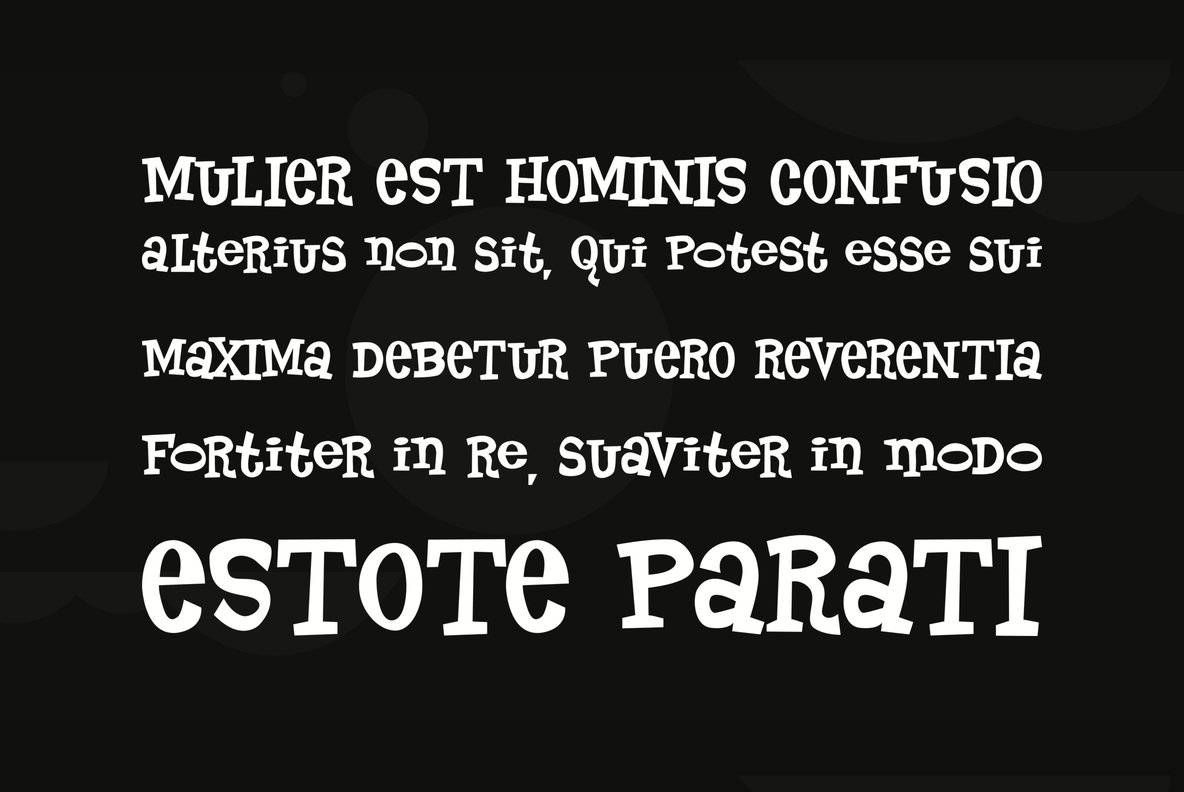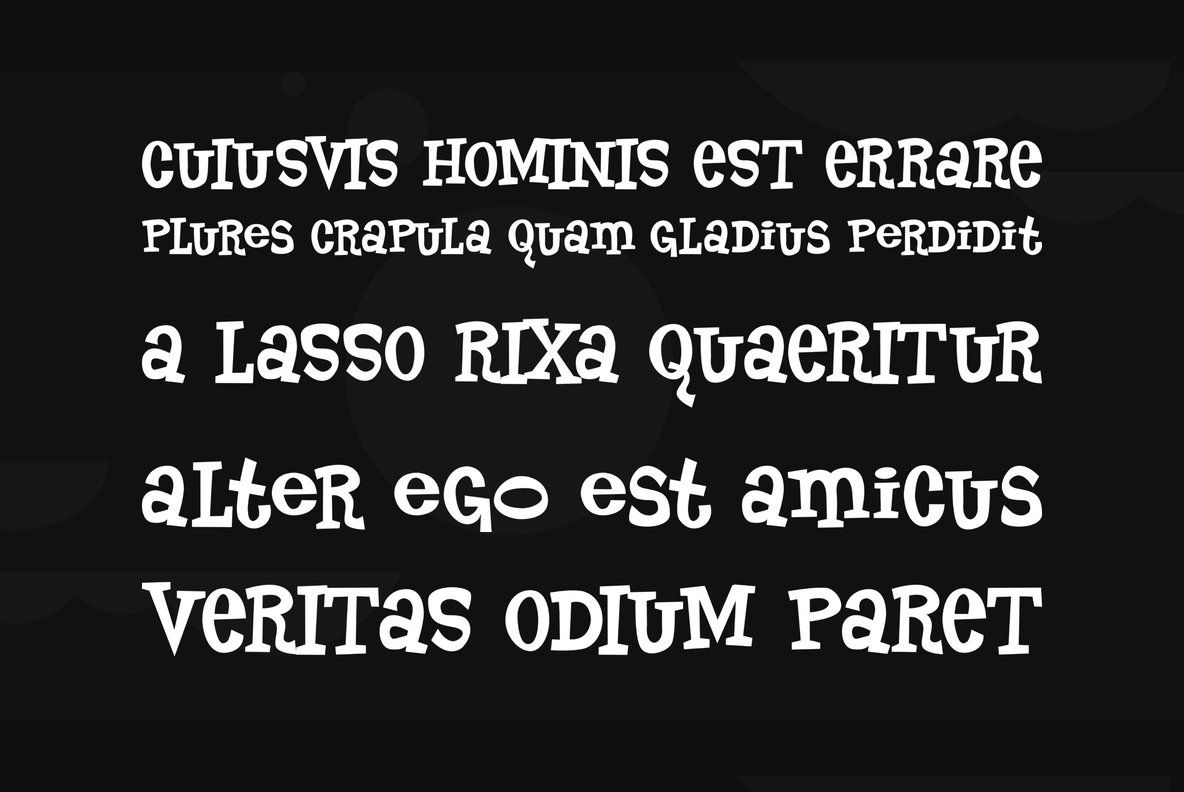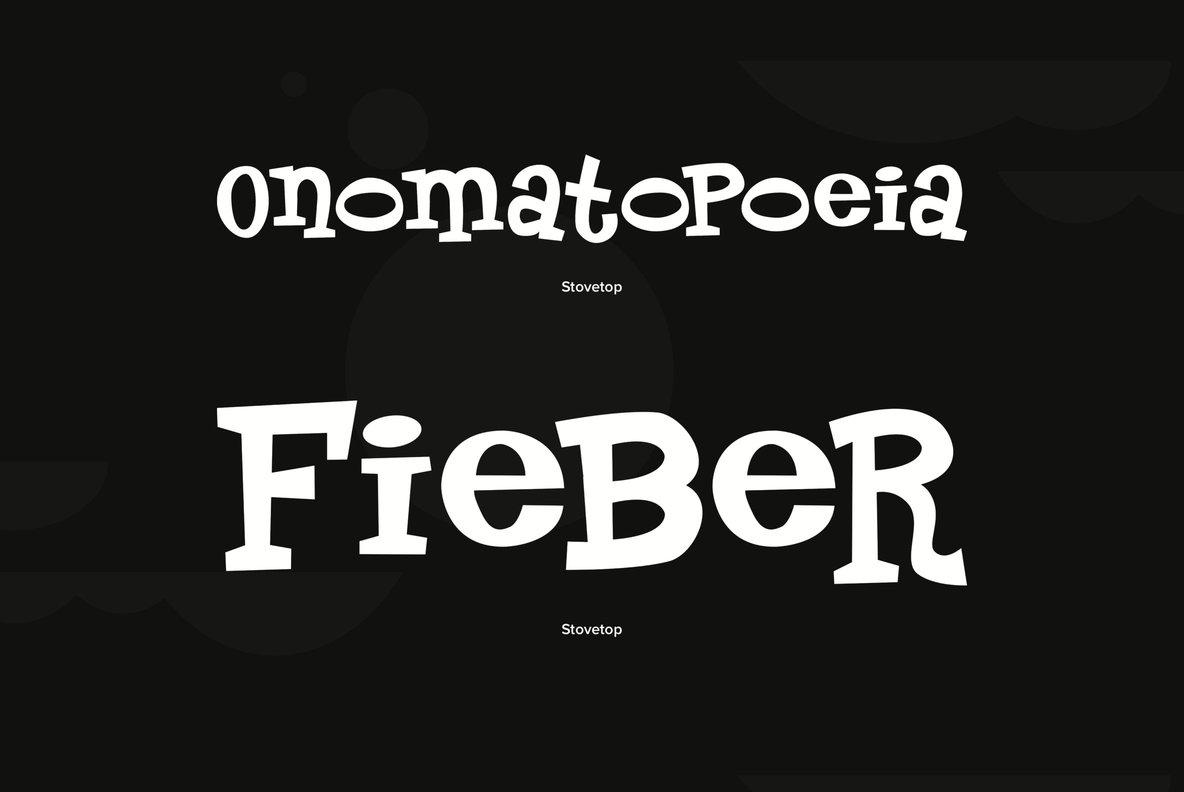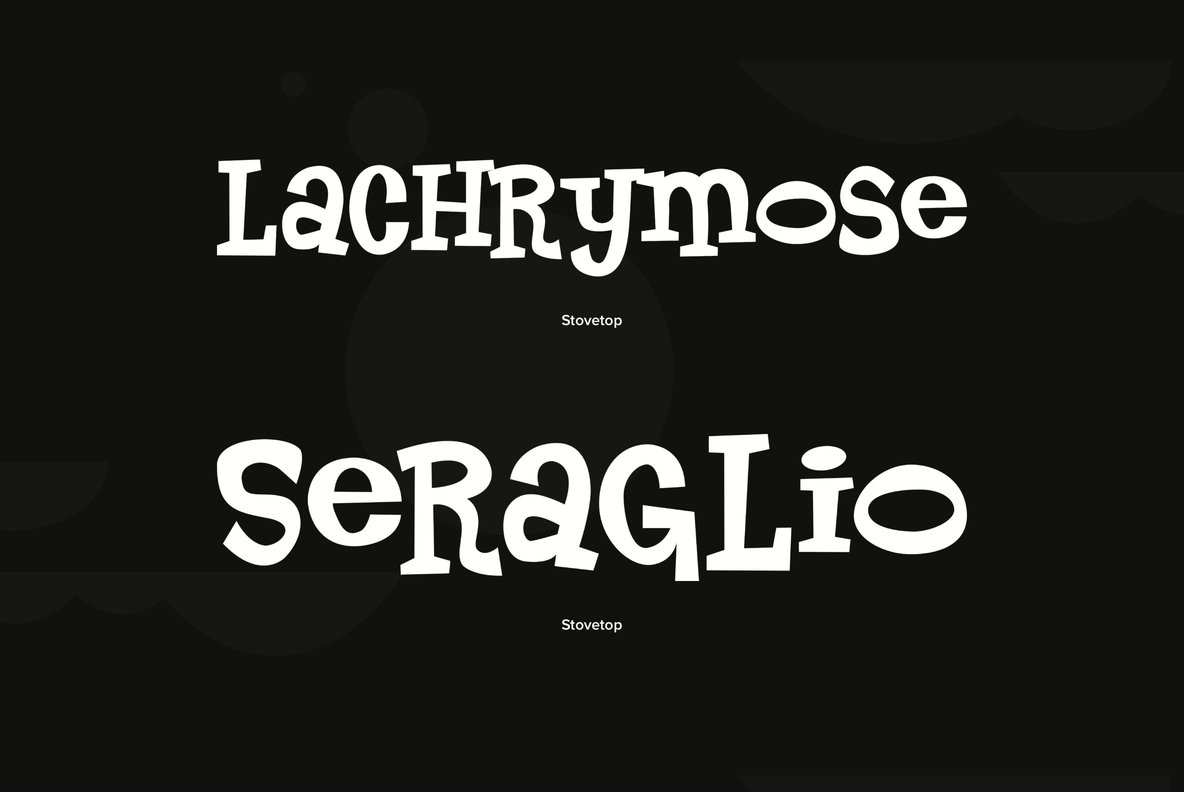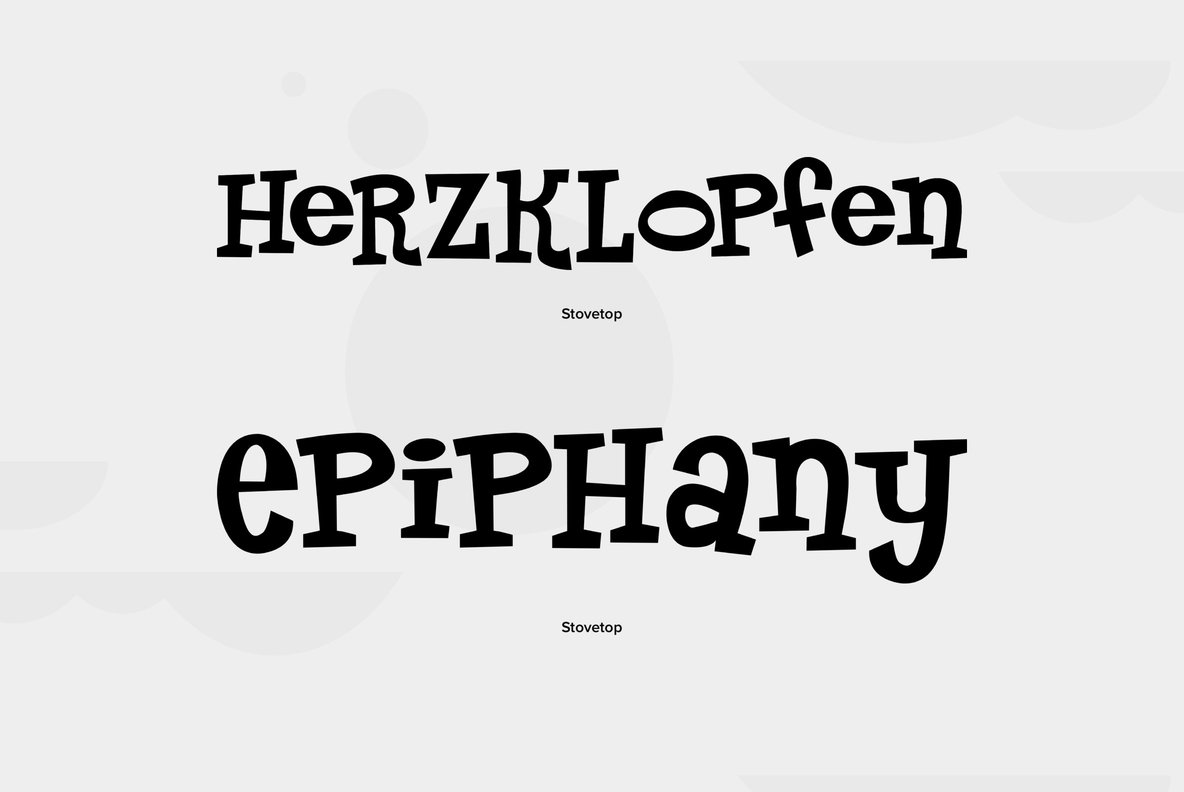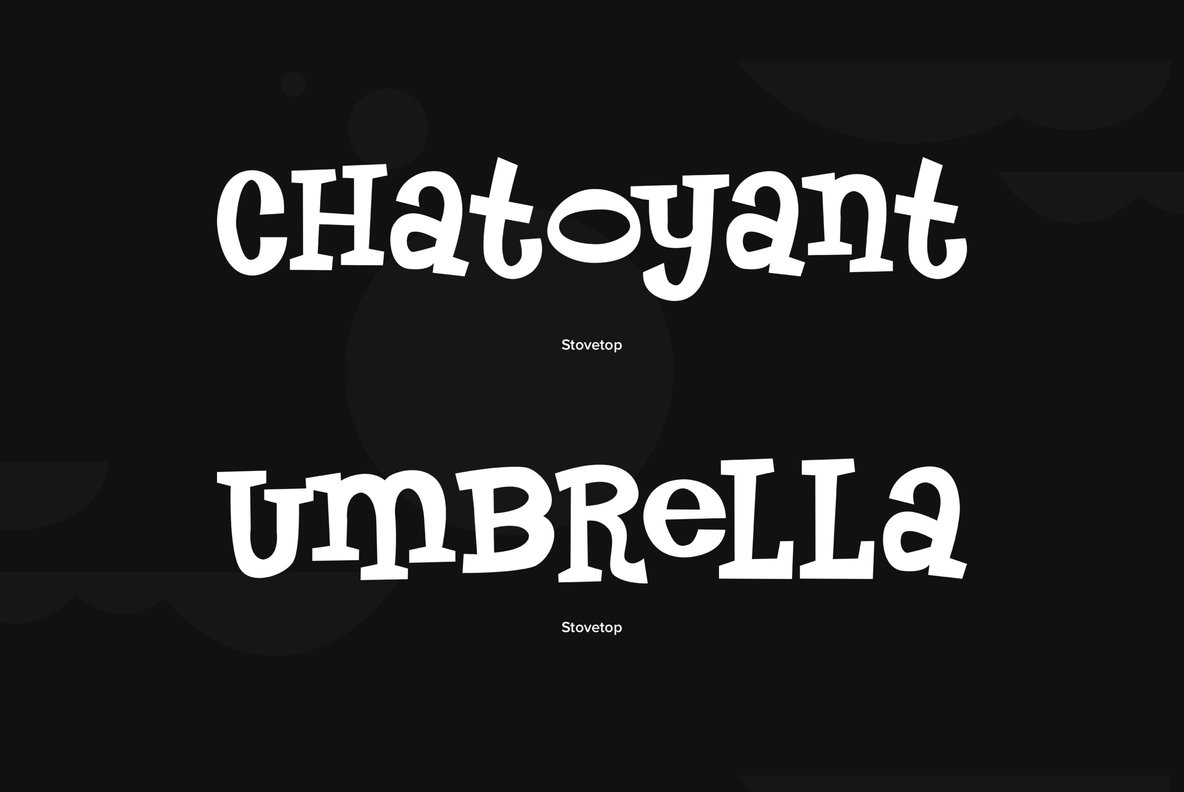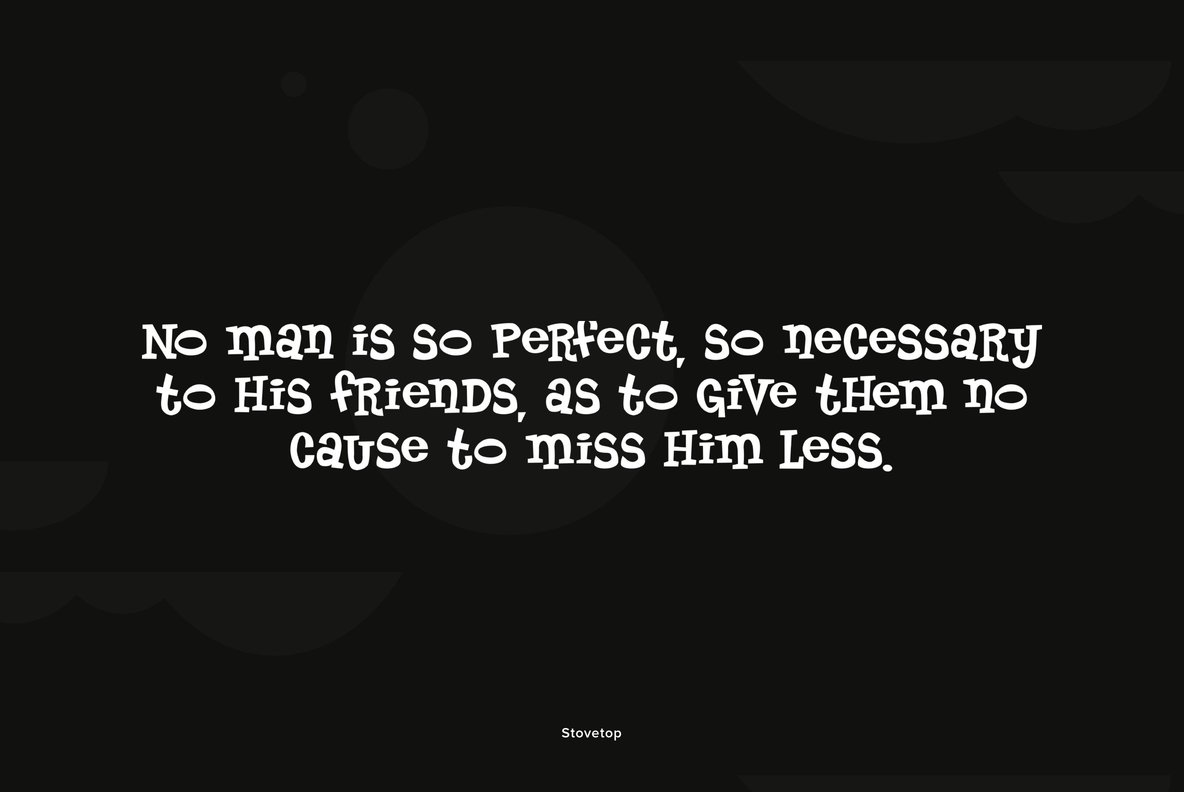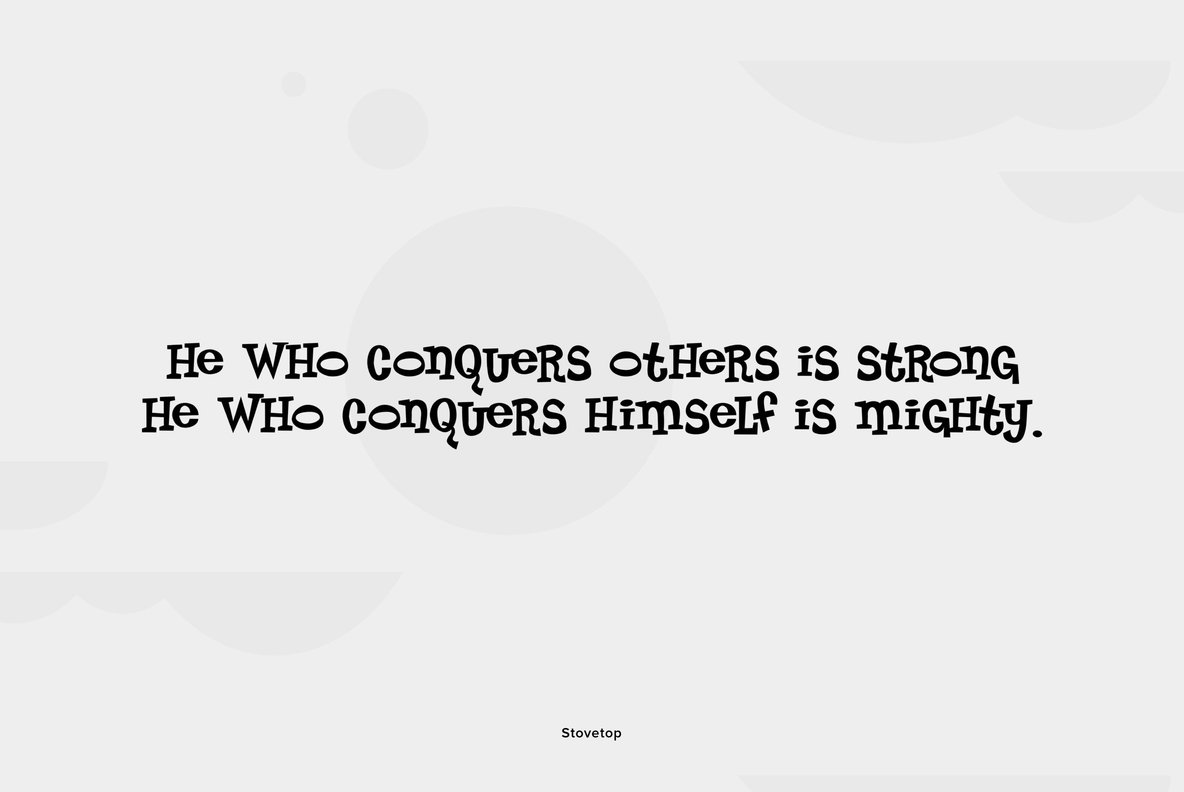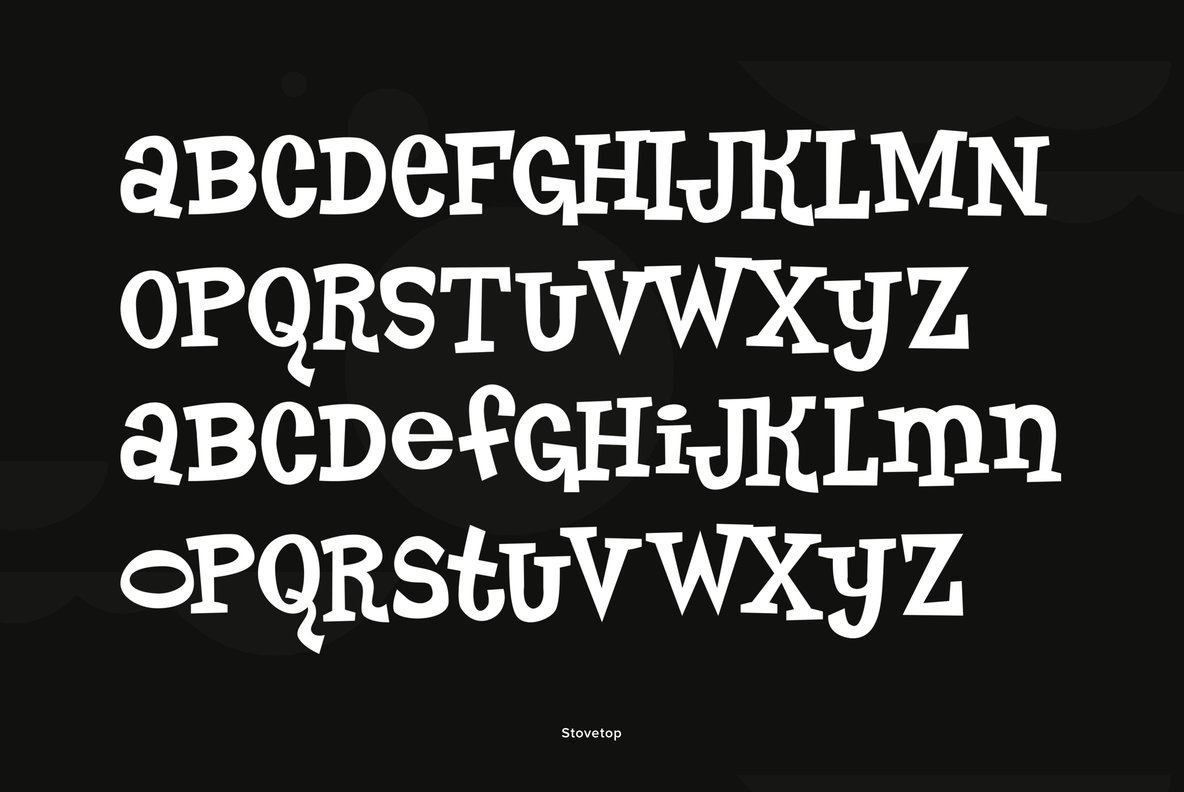
Stovetop
Foundry: Font Diner
Just the right blend of herbs and spices come together in this playful offbeat retro font! A perfect side for any main design dish!